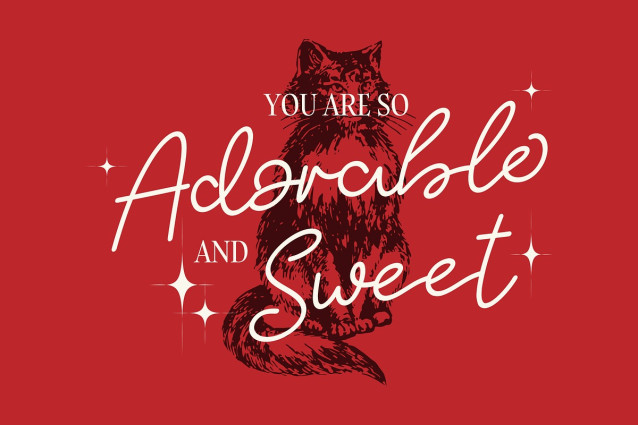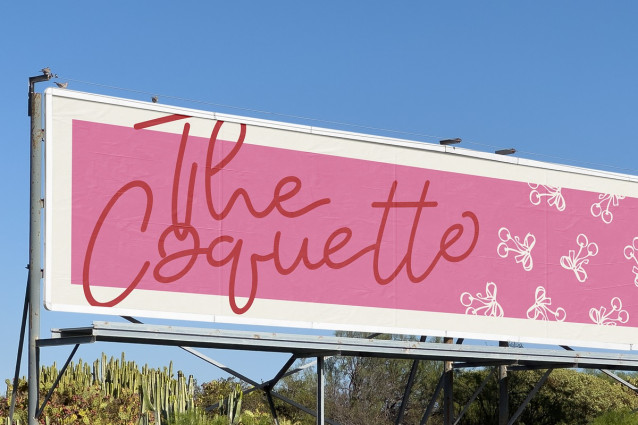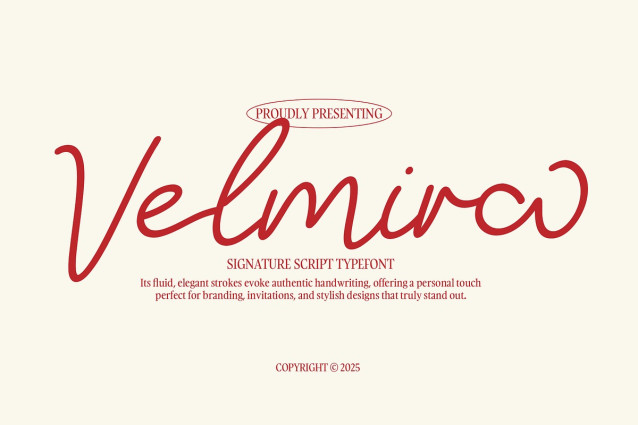
IT Velmira Font
IT Velmira Font is a refined signature script typeface designed to bring the beauty of authentic handwriting into your creative projects. With its smooth, fluid strokes and graceful curves, Velmira combines elegance with a personal touch, making it an ideal choice for designs that demand sophistication and individuality.
This versatile script is perfect for branding, logos, wedding invitations, stationery, social media graphics, and packaging. Its natural rhythm and flowing letterforms add warmth and charm, while maintaining excellent readability across both digital and print applications.
Velmira transforms ordinary text into a stylish statement, allowing your designs to truly stand out. Whether you are creating high-end branding or heartfelt invitations, Velmira offers the perfect balance of authenticity, modern flair, and timeless handwritten beauty.